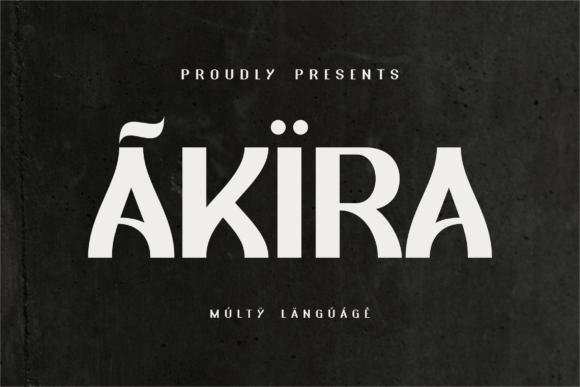
The Akira Font: Elevate Your Designs with a Cool and Stylish Sans Serif
I’ll never forget the time I was working on a project for a trendy clothing brand. I had a clear vision of what I wanted to create, but something was missing – the perfect font. I scrolled through my font library, but nothing seemed quite right. That’s when I stumbled upon the Akira font. It was love at first sight! 😍 The sleek lines, the modern vibe, and the versatility of this sans serif font instantly won me over. In this article, I’ll share my experience with the Akira font, its features, and how to make the most of it in your designs.
An Honest Review of Akira Font
What I Love About Akira Font
- ✨ Clean and modern design: Akira’s sleek lines and curves make it perfect for designs that require a touch of sophistication.
- ✅ Highly versatile: This font can be used for a wide range of projects, from branding and advertising to packaging and digital media.
- 💡 Excellent for headlines and titles: Akira’s bold and stylish appearance makes it ideal for grabbing attention and creating a lasting impression.
While Akira is an excellent font, there are a few things to keep in mind:
- 🤔 Limited use for body text: Akira’s sleek design can make it difficult to read in large blocks of text. It’s best used for headlines, titles, and short paragraphs.
- ⚠️ May not be suitable for formal or traditional designs: Akira’s modern vibe may not be the best fit for designs that require a more traditional or formal look.
The Designer Inspiration Behind Akira
The Akira font was designed with the goal of creating a clean, modern, and versatile sans serif font. The designer, inspired by the futuristic and avant-garde styles of the 1980s, aimed to create a font that would be perfect for designs that require a touch of sophistication and elegance. The result is a font that is both stylish and highly legible, making it perfect for a wide range of design applications.
| Font Name | Akira Font |
| Author | Monoletter |
| What is the Akira font? | The Akira font is a cool and stylish sans serif font designed for modern designs. |
| What are some common uses for the Akira font? | Akira is commonly used for branding, advertising, packaging, and digital media. |